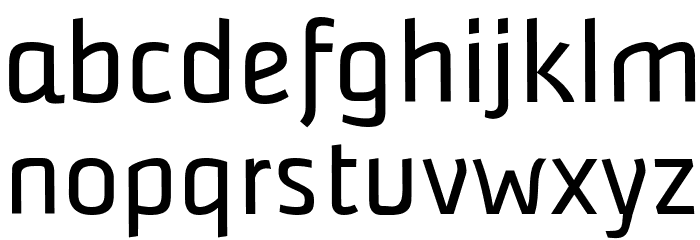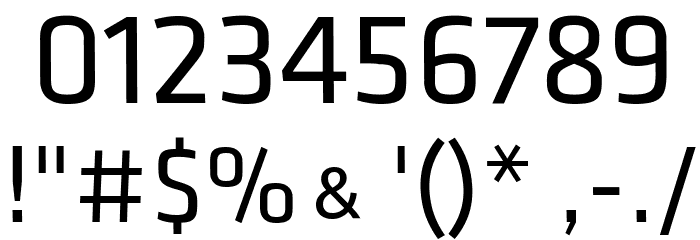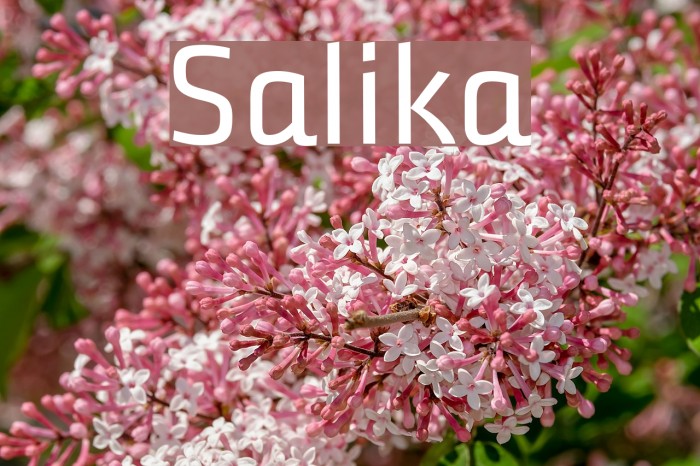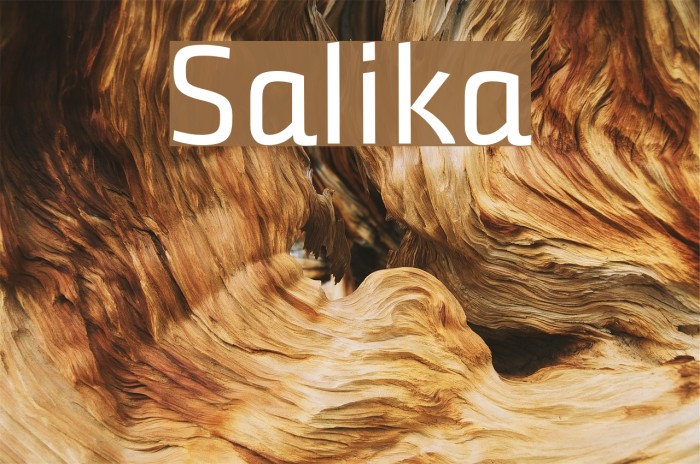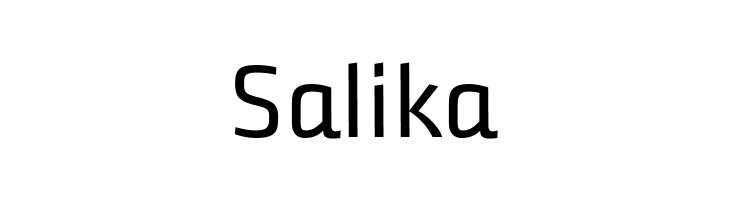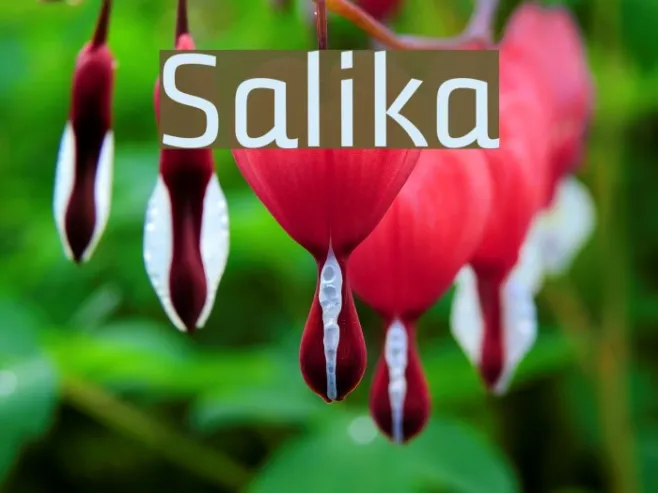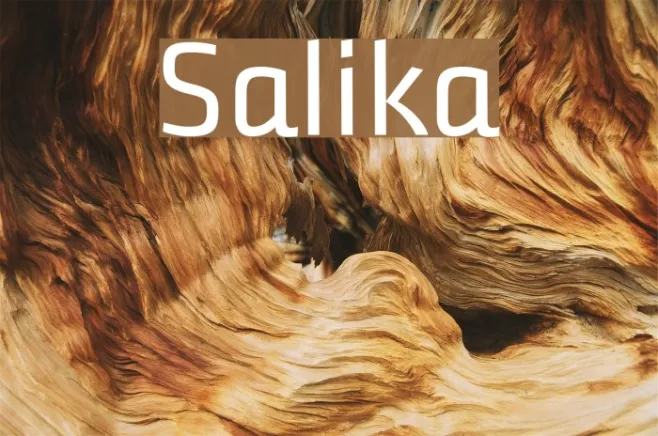
Salika Font
This font features a modern sans-serif design with clean, geometric lines and a slightly condensed appearance. The characters exhibit a uniform stroke width, contributing to a sleek and contemporary look. The uppercase letters are bold and assertive, while the lowercase letters maintain a balanced and harmonious flow. Numerals are clear and distinct, ensuring readability. The special characters are well-integrated, maintaining the overall aesthetic of the font. This typeface is versatile, suitable for both digital and print media, and can effectively convey a sense of modernity and professionalism.
A modern sans-serif font with clean, geometric lines and a slightly condensed style.